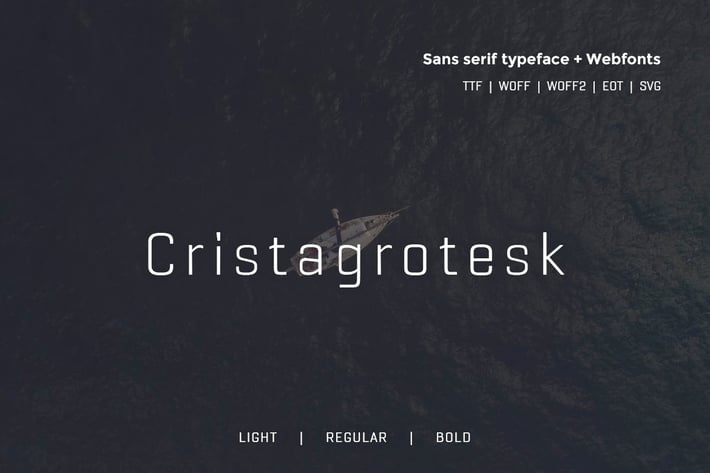
Cristagrotesk - Typeface + Webfonts
Cristagrotesk Sans
Cristagrotesk Sans is a modern headline typeface inspired by German Grotesk typefaces, Cristagrotesk sans distinctive with its pleasant look and extremely modern smooth curves and round corners. Perfect for headlines and paragraphs. It comes in 3 different weights.